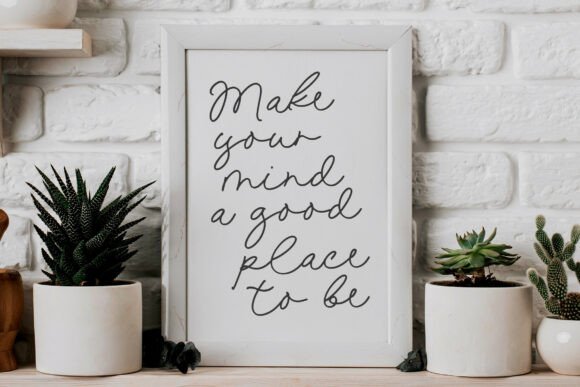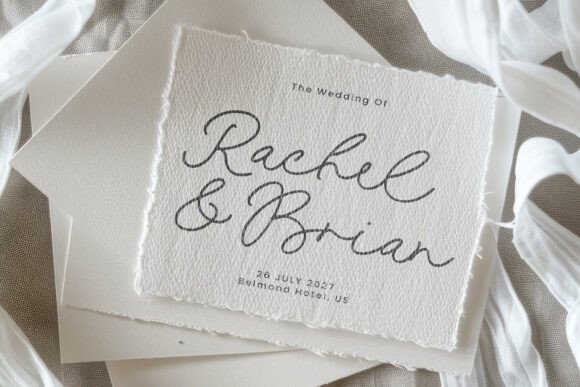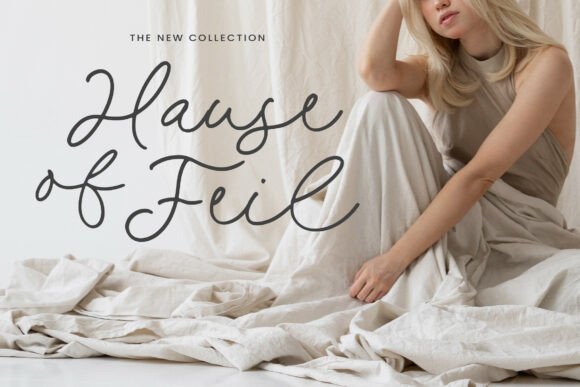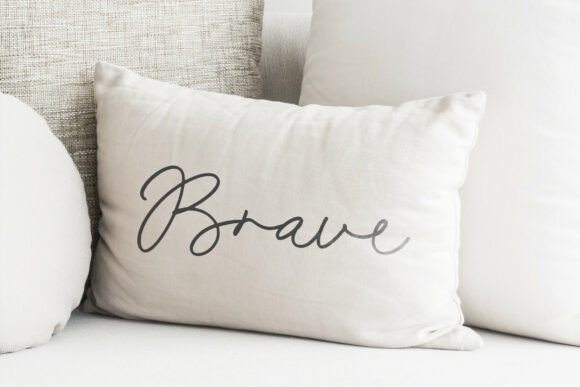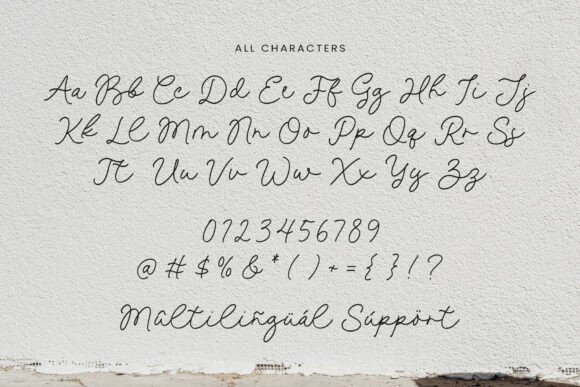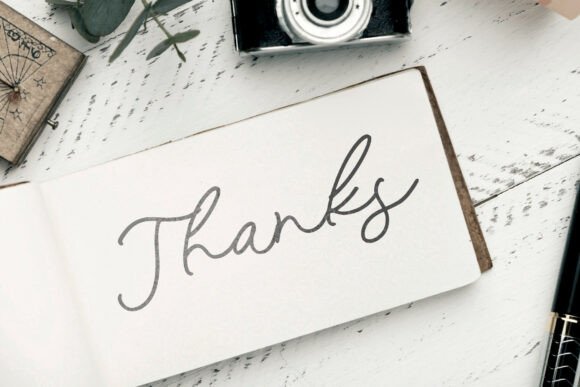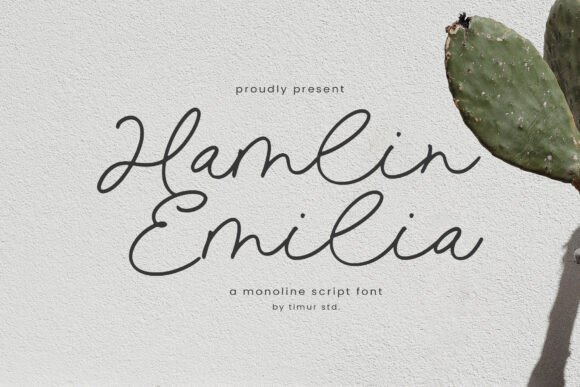
Introducing Hamlin Emilia Font: Elevate Your Designs with Elegant Simplicity
In the world of typography, fonts play a crucial role in conveying messages, expressing emotions, and creating lasting impressions. For designers, crafters, and anyone looking to add a touch of elegance to their projects, the Hamlin Emilia font is a game-changer. This stylish monoline script font seamlessly blends traditional sophistication with modern simplicity, making it an indispensable tool for a wide range of design applications.
What is Hamlin Emilia Font?
Hamlin Emilia is a beautifully crafted monoline script font that boasts smooth, flowing lines and a consistent stroke weight. This unique combination of characteristics lends it an air of elegance and refinement, perfect for projects that demand a high level of sophistication. Whether you’re working on branding materials, invitations, logos, or social media graphics, Hamlin Emilia brings a level of handwritten charm that is both distinctive and captivating.
Key Features of Hamlin Emilia Font
• Elegant Monoline Design: The font’s monoline construction ensures that every line and curve is smooth and fluid, providing a cohesive and luxurious feel to your designs.
• Consistent Stroke Weight: The consistent stroke weight adds to the font’s modern simplicity, making it versatile for various design applications.
• Clean Readability: Despite its elegant and cursive nature, Hamlin Emilia maintains excellent readability, ensuring that your message is conveyed clearly and effectively.
• Handwritten Charm: The font’s subtle imperfections and fluidity give it a warm, handwritten feel that adds a personal touch to any design.
Applications of Hamlin Emilia Font
The versatility of Hamlin Emilia font makes it suitable for a myriad of design projects. Here are some of the key areas where this font truly shines:
• Branding: Create memorable brand identities with Hamlin Emilia’s elegant and modern aesthetic. Use it for logos, business cards, and packaging to give your brand a sophisticated edge.
• Invitations: Whether it’s a wedding invitation, birthday party, or corporate event, Hamlin Emilia adds a touch of class and personalization that will leave a lasting impression on your guests.
• Logos: Design unique and captivating logos that stand out from the crowd. The font’s distinctive style ensures that your logo will be remembered and recognized.
• Social Media Graphics: Elevate your social media presence with eye-catching graphics that incorporate Hamlin Emilia. From quotes and announcements to promotional offers, this font will make your content shine.
Why Choose Hamlin Emilia Font?
In a sea of fonts, Hamlin Emilia stands out for several reasons:
• Unique Style: Its monoline script design is both unique and versatile, allowing you to create designs that are distinct and engaging.
• Ease of Use: The font’s clean lines and consistent stroke weight make it easy to read and work with, even for those who are new to design.
• Emotional Connection: The handwritten charm of Hamlin Emilia helps create an emotional connection with your audience, making your designs more relatable and impactful.
Hamlin Emilia font is a powerful tool for designers and crafters looking to infuse their projects with elegance, simplicity, and a touch of personality. Its smooth lines, consistent stroke weight, and clean readability make it perfect for a wide range of applications, from branding and invitations to logos and social media graphics. By choosing Hamlin Emilia, you’re not just selecting a font; you’re embracing a design philosophy that values elegance, versatility, and connection. Elevate your designs to new heights with Hamlin Emilia and discover the difference that this beautiful monoline script font can make.